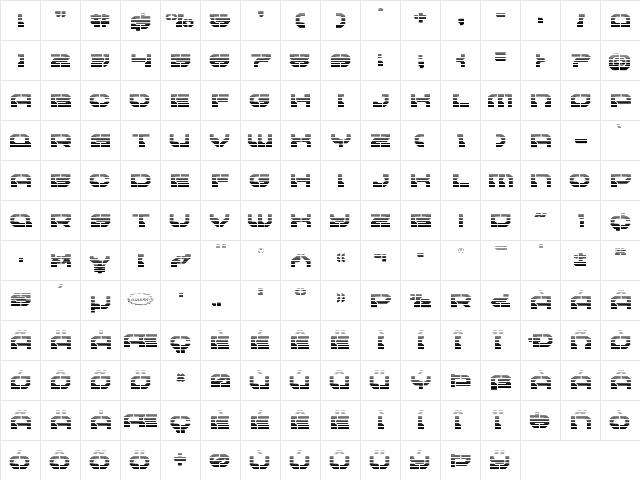
Pulsar Class Gradient Regular
Design Context for Pulsar Class Gradient Typeface
Pulsar Class Gradient is a composed and adaptable typeface that performs quietly and consistently across a wide range of design contexts.